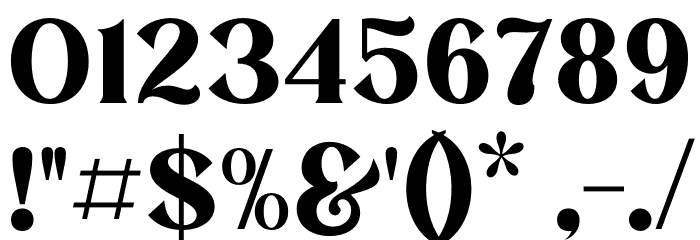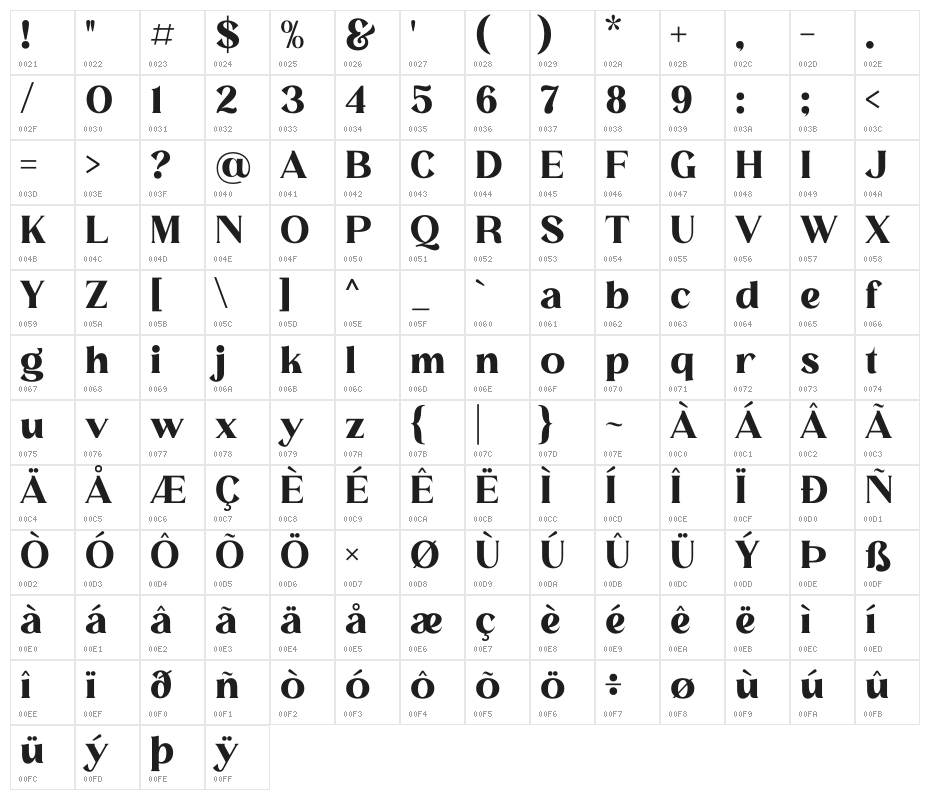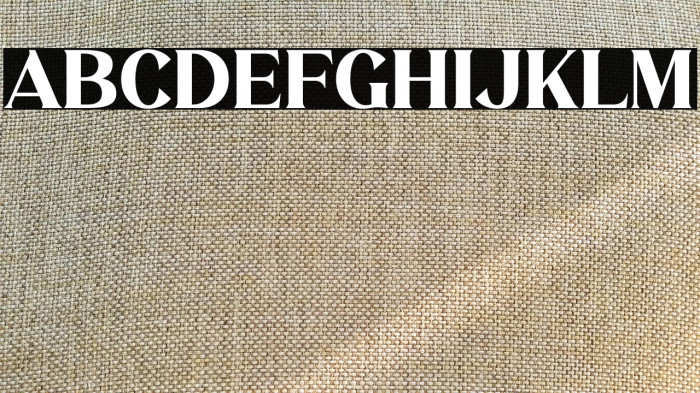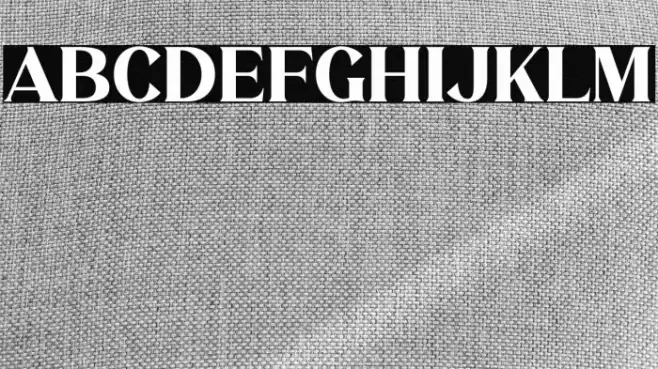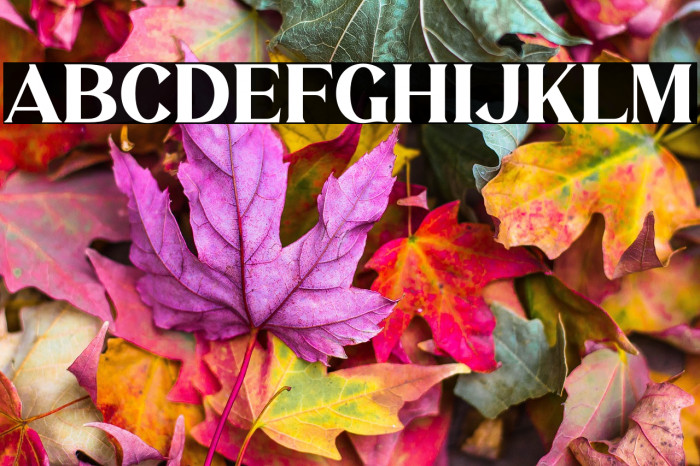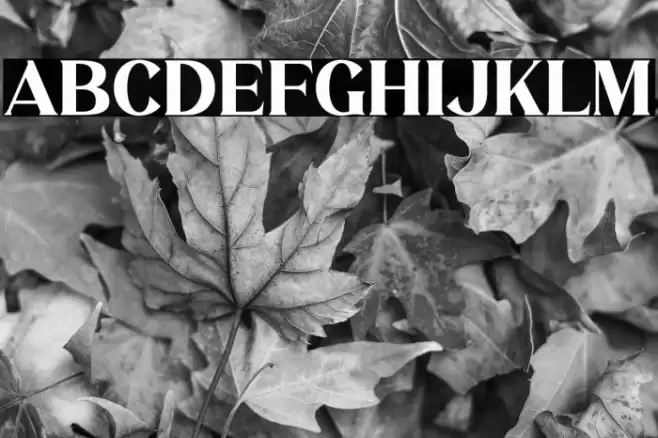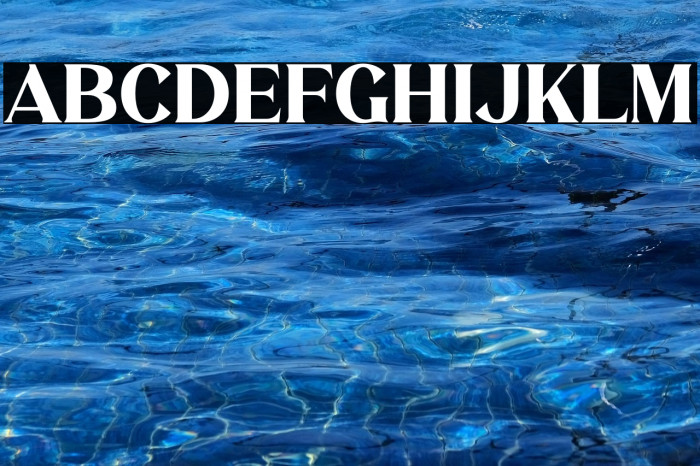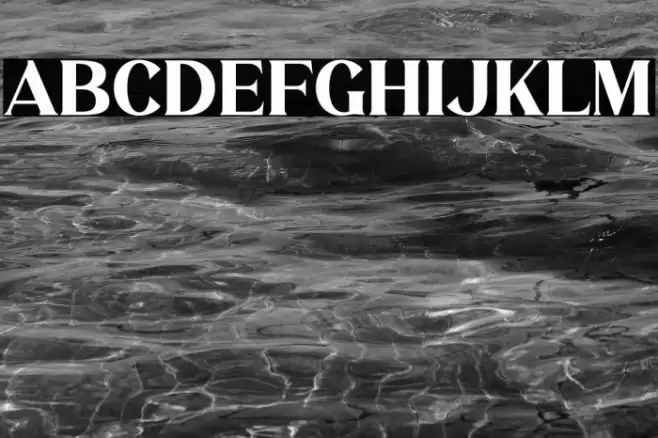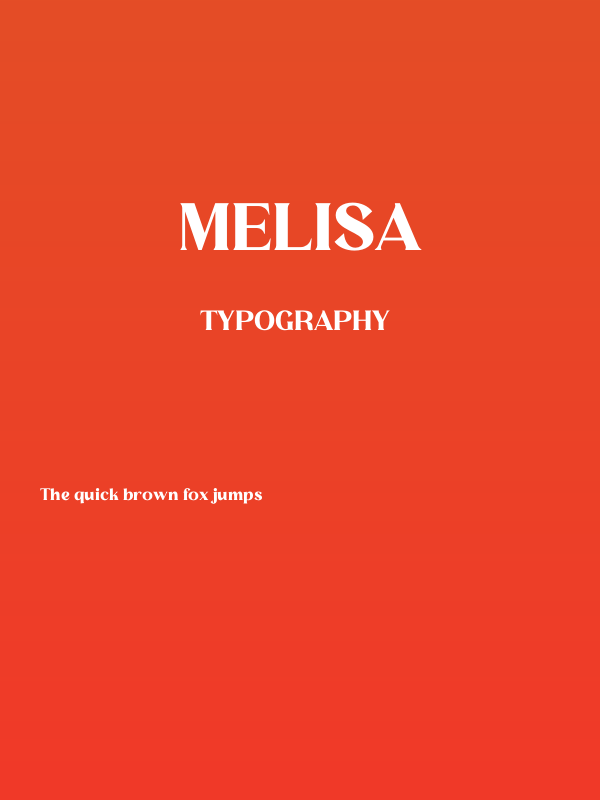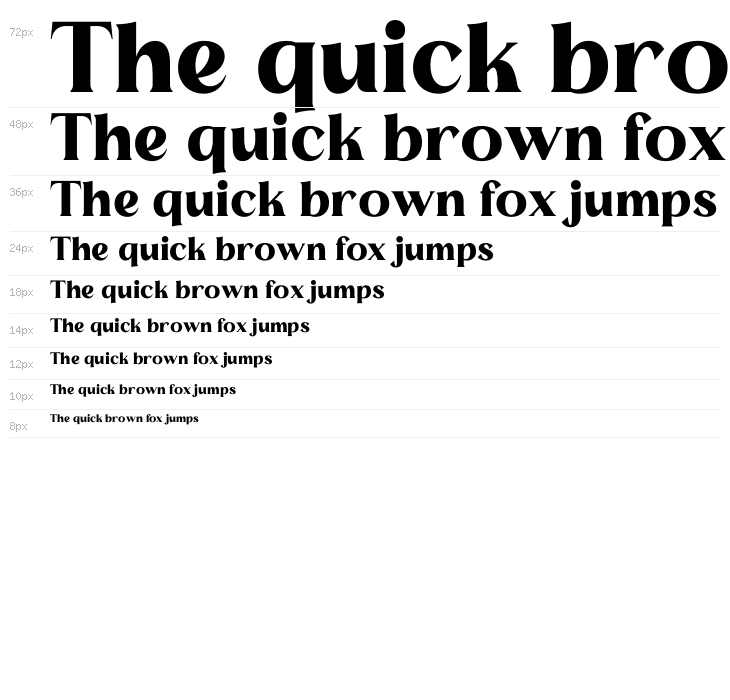
MELISA Font
MELISA Description
This font features a bold and dynamic serif style, characterized by its thick strokes and high contrast between thick and thin lines. The serifs are pronounced and add a classic touch, while the overall design maintains a modern flair. The uppercase letters are strong and commanding, making them suitable for headlines. The lowercase letters maintain readability with a slightly condensed form, ensuring versatility across different text sizes. Numbers and special characters are consistent with the bold style, offering a cohesive look throughout. The font's elegant curves and sharp edges make it ideal for projects that require a sophisticated yet impactful appearance.
| Proposed Projects | Ideal for branding, editorial design, book covers, and luxury product packaging. |